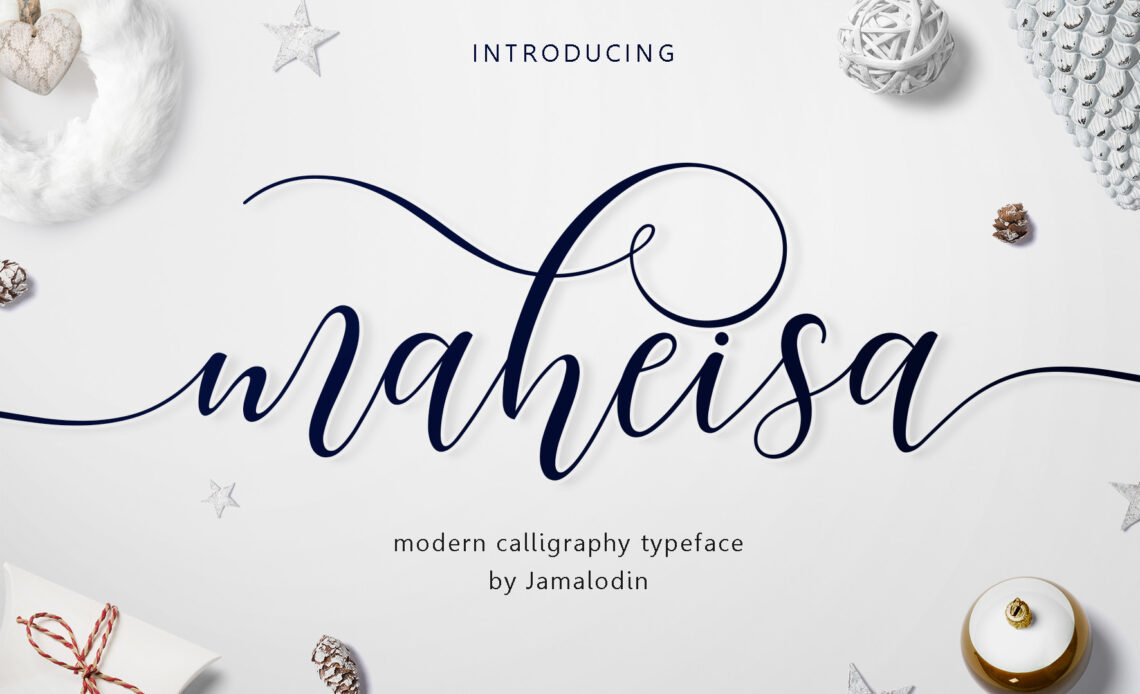
**Maheisa Script: A Journey Through Elegance and Distinction**
In the vast digital realm, where visual aesthetics reign supreme, Maheisa Script emerges as a typographic masterpiece that captivates hearts and sets imaginations aflame. This modern typeface, meticulously crafted by the visionary designer Jamalodin, is a testament to artistry and innovation.
**The Art of Expression Unleashed**
Maheisa Script is not merely a collection of glyphs; it's a symphony of curves and strokes that dance across the screen with grace and elegance. Each letter, lovingly designed and intricately detailed, speaks to the essence of creativity, inviting you to embark on a journey of self-expression and visual storytelling.
**A Universe of Characters Awaits**
With over 600 unique glyphs at your disposal, Maheisa Script opens up a world of possibilities. Explore a captivating array of alternates, swashes, and OpenType features that bring depth and dimension to your digital creations. Experiment with ligatures and stylistic sets to craft bespoke designs that leave a lasting impression.
**Perfect Harmony for Every Occasion**
Whether you're a seasoned designer seeking to elevate your projects or a budding creative seeking to make a statement, Maheisa Script seamlessly adapts to your vision. Its versatility knows no bounds, making it the perfect companion for logos, branding, social media graphics, invitations, greeting cards, posters, and an endless array of digital masterpieces.
**Ignite Your Passion with Maheisa Script**
Embrace the allure of Maheisa Script and watch as your creative endeavors take flight. Let its enchanting curves and sophisticated aura inspire you to create works of art that captivate and enchant. Experience the transformative power of typography as you weave stories that resonate with your audience, leaving them spellbound and eager for more.
**A Symphony of Beauty and Functionality**
Maheisa Script isn't just aesthetically pleasing; it's also a powerhouse of functionality. Its carefully crafted kerning and spacing ensure optimal readability, while its extensive language support opens up a world of creative possibilities. Whether you're catering to a global audience or simply seeking a font that effortlessly complements your design vision, Maheisa Script delivers.